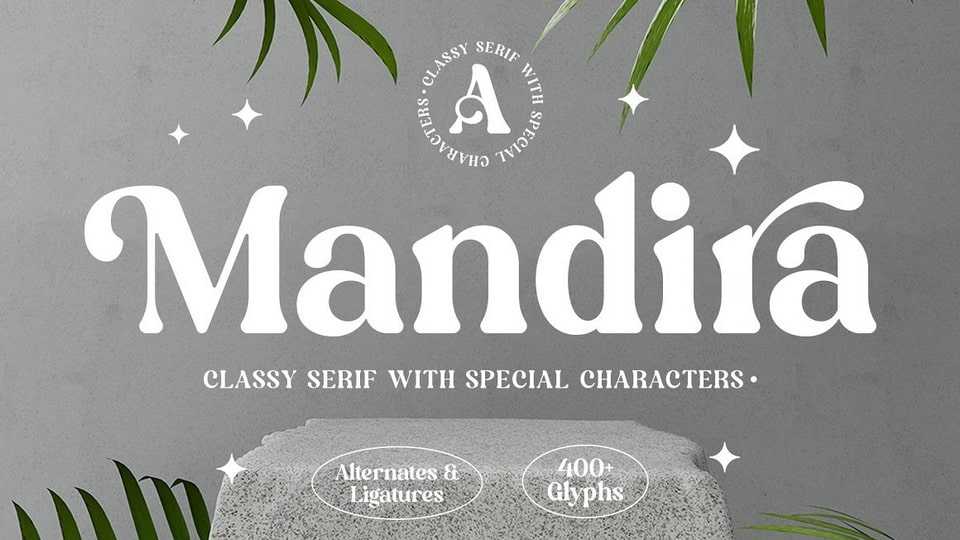
Download Mandira font, an ultimate serif typeface for those seeking a unique and sophisticated touch to their design projects. Inspired by the modern retro, Mandira is the perfect choice for those seeking a minimalist yet stylish look.